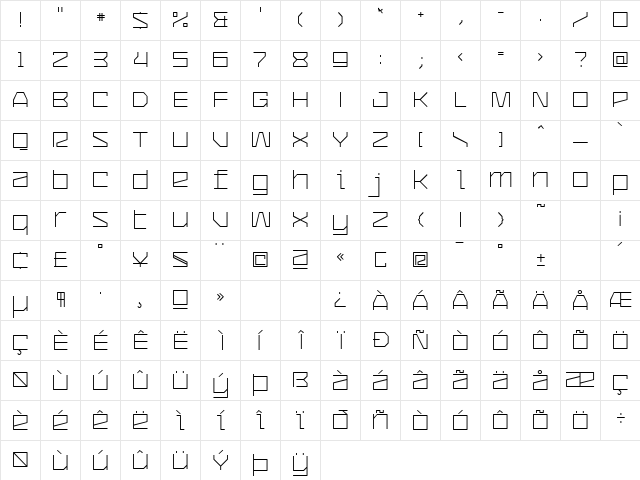
CommunityService Light Font Preview
CommunityService Light
CommunityService Light Font Details
| Foundry | YouWorkForThem |
| Designer | Michael Cina |
Design Context for CommunityService Typeface
CommunityService is a composed and adaptable typeface that performs quietly and consistently across a wide range of design contexts. The delicate stroke weight brings airiness and refinement to layouts.